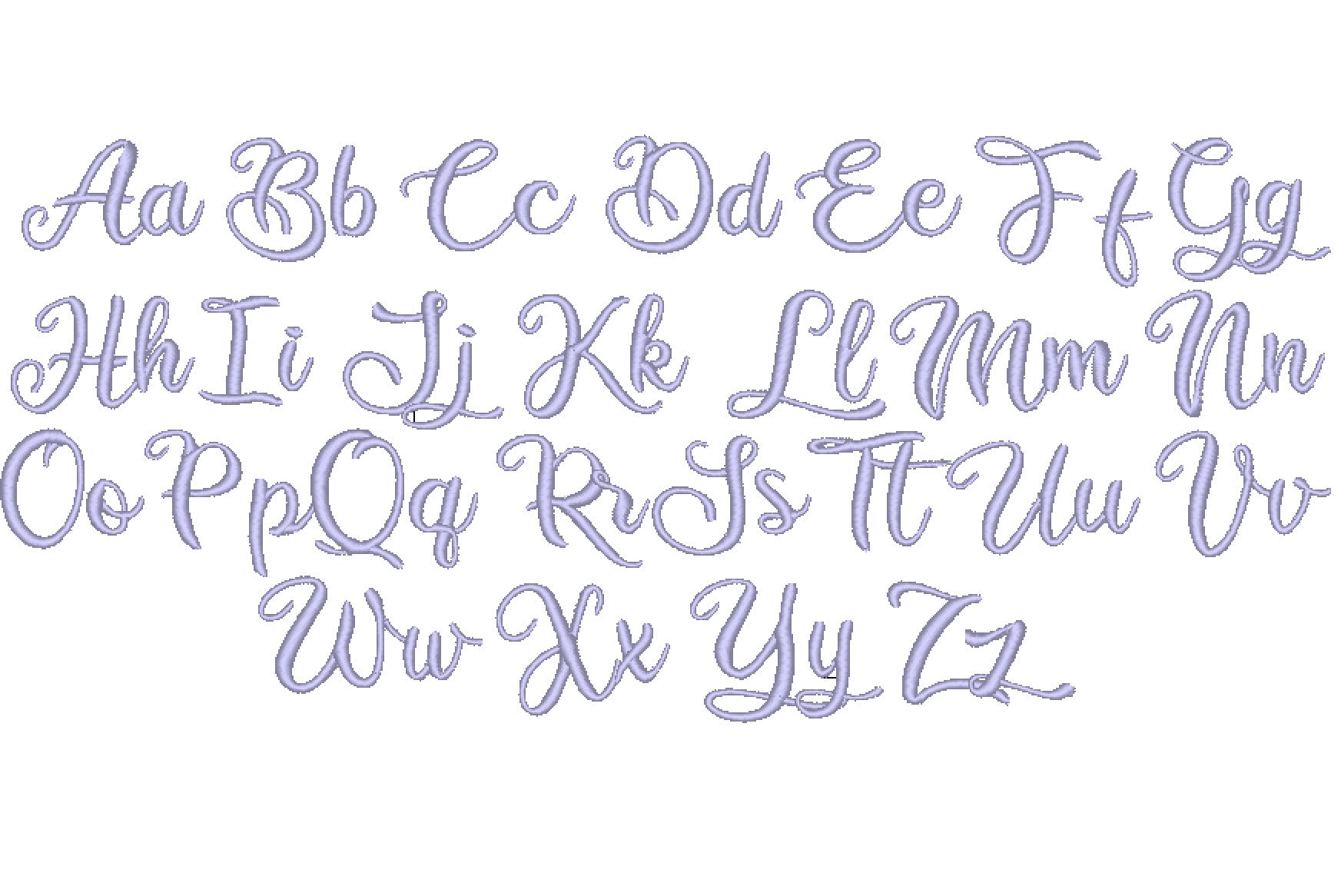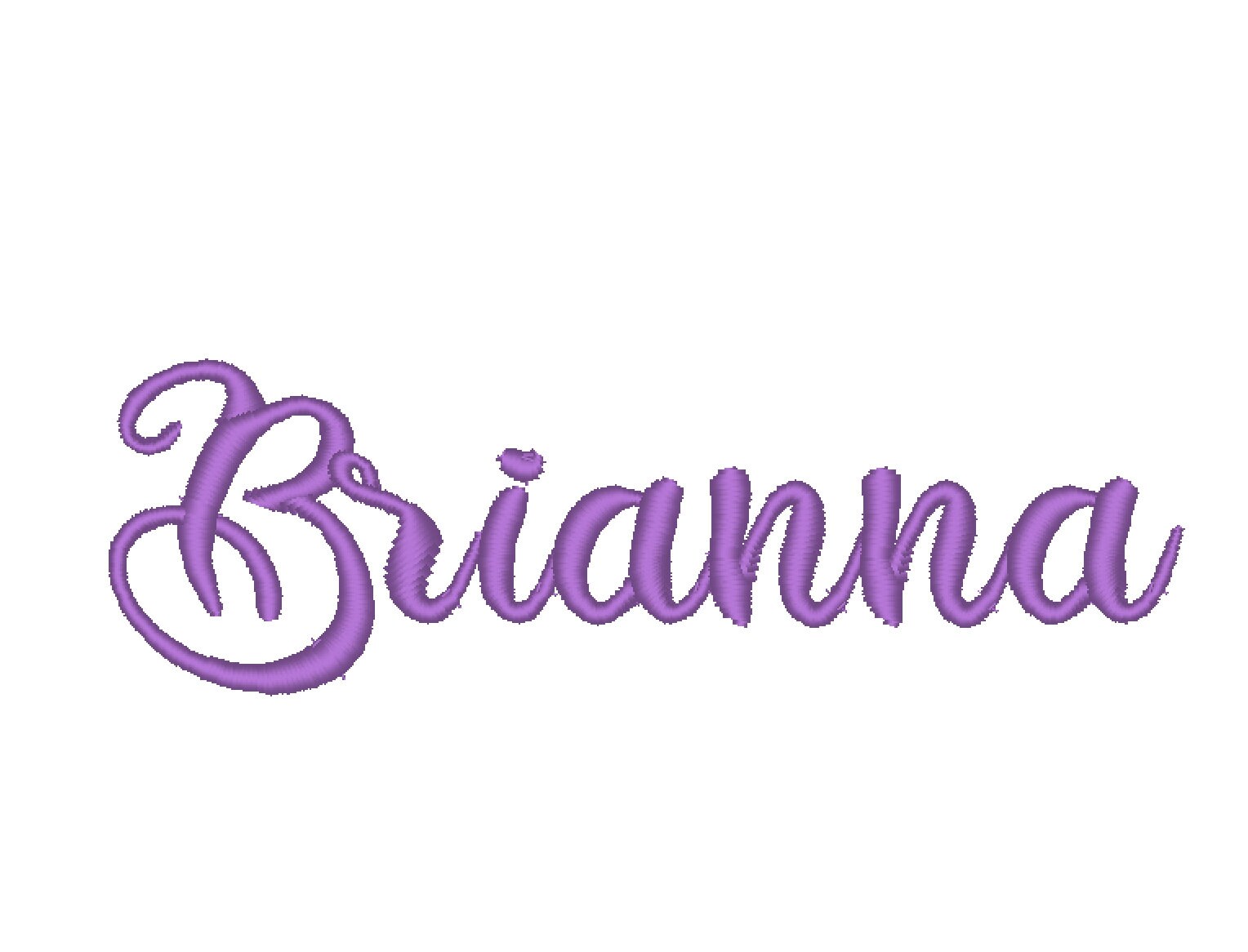
Swirl satin stitch Font handwritten script Alphabet machine embroidery designs assorted mini sizes 0.5 up to 2.5 inch monogram kids baby BX
Entire alphabet uppercase and lowercase letters.